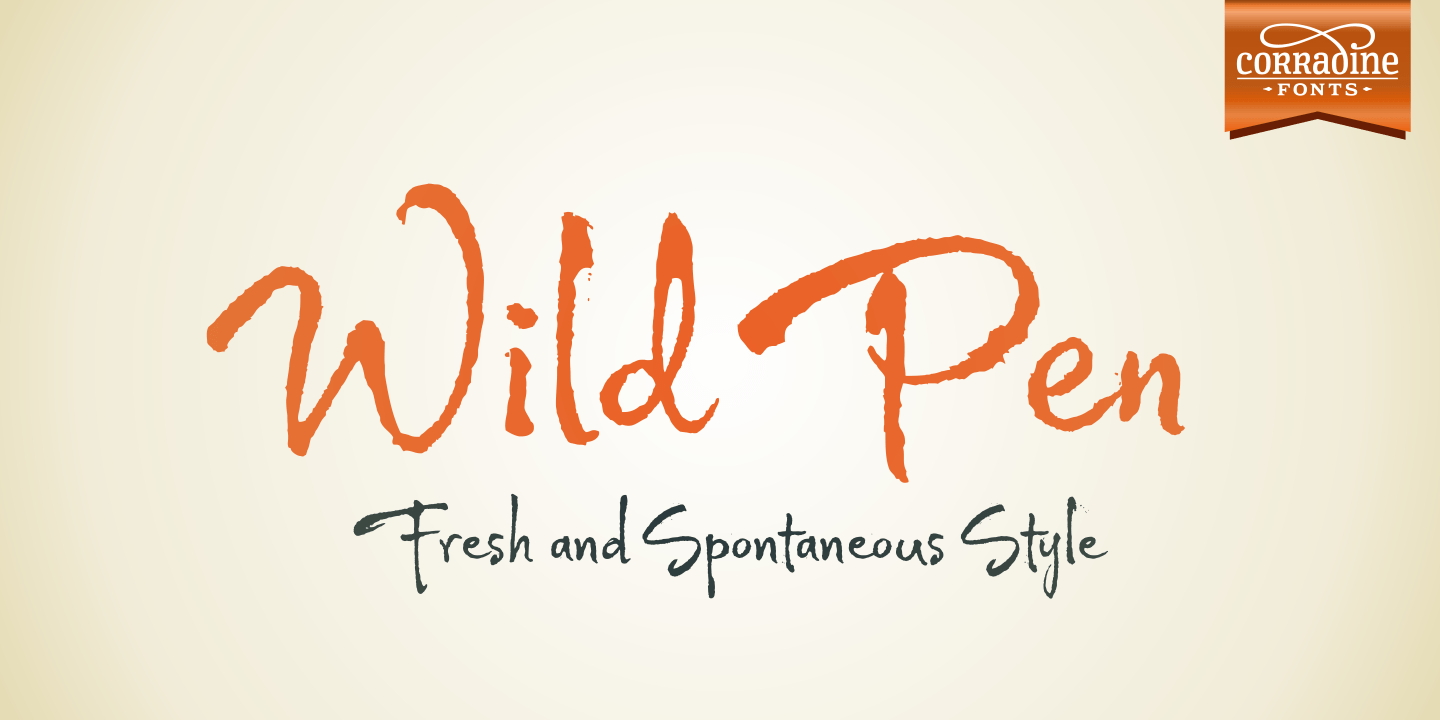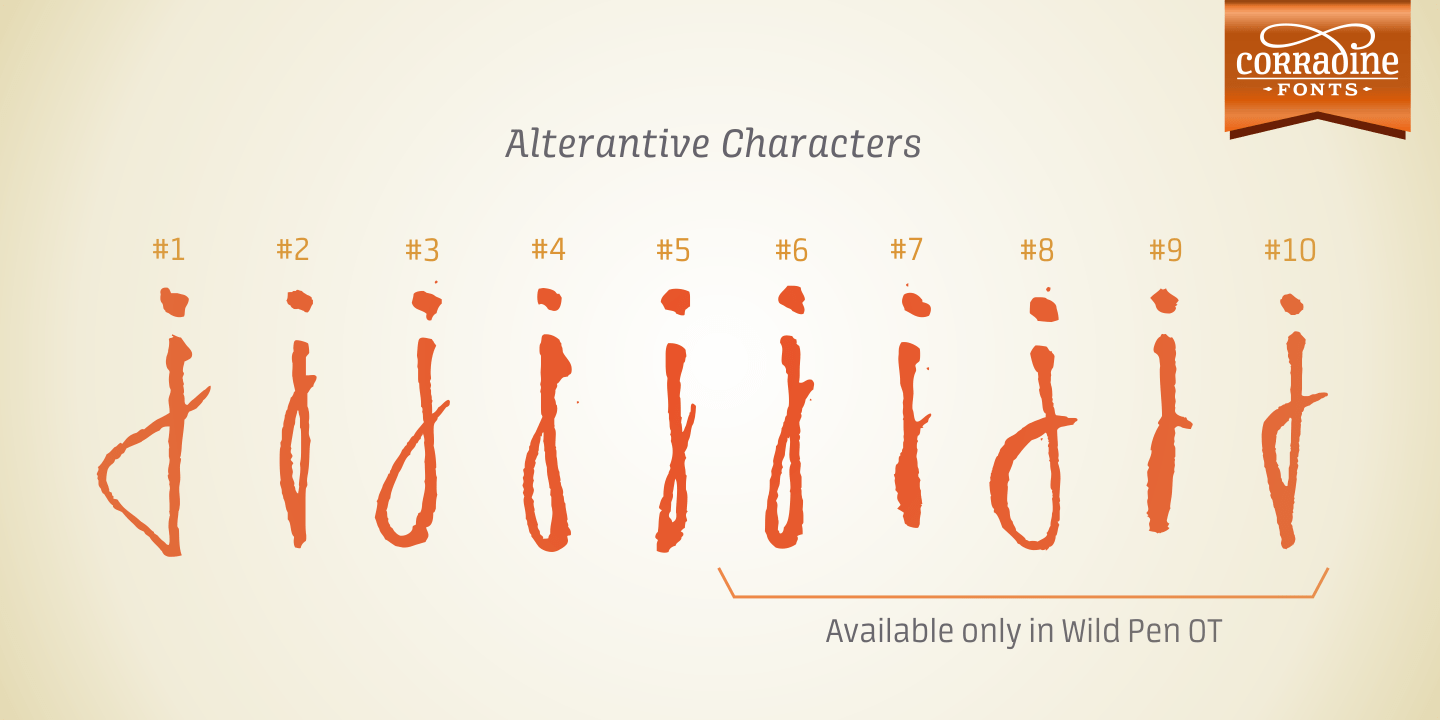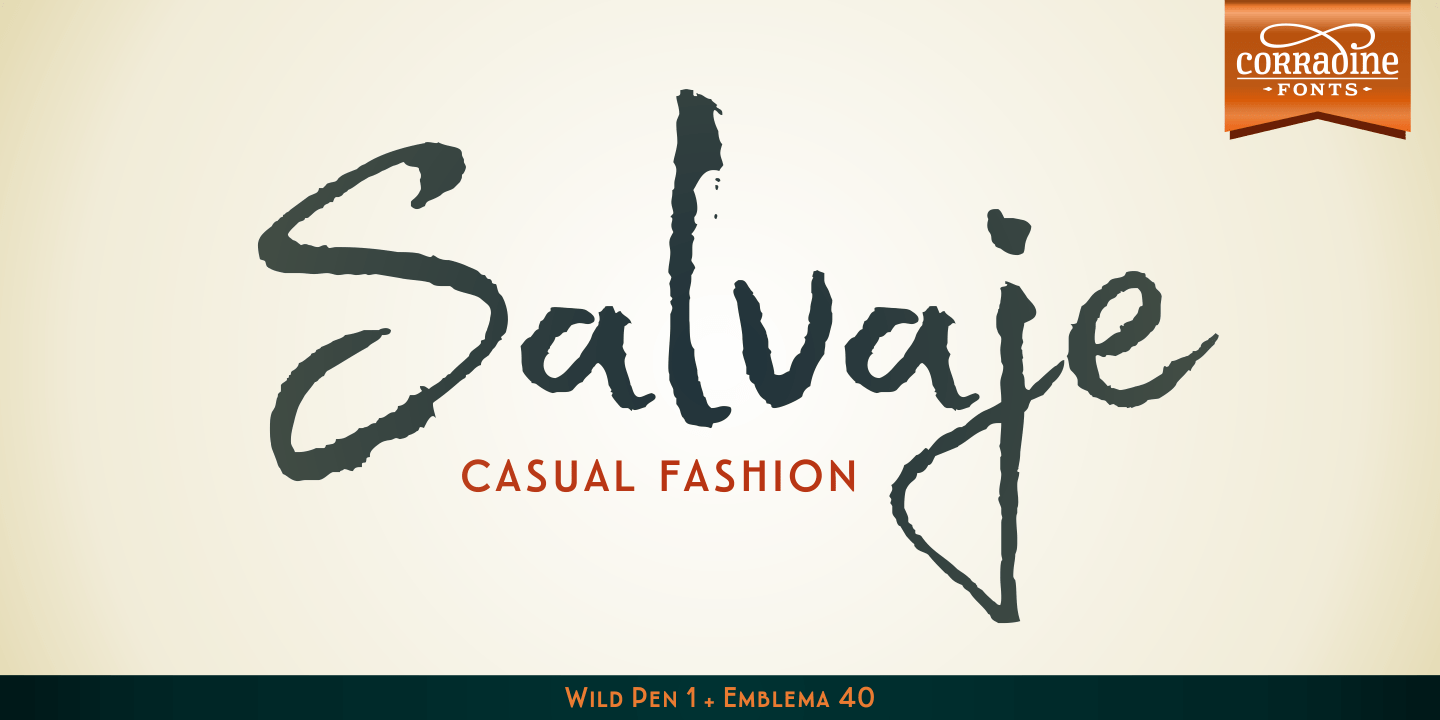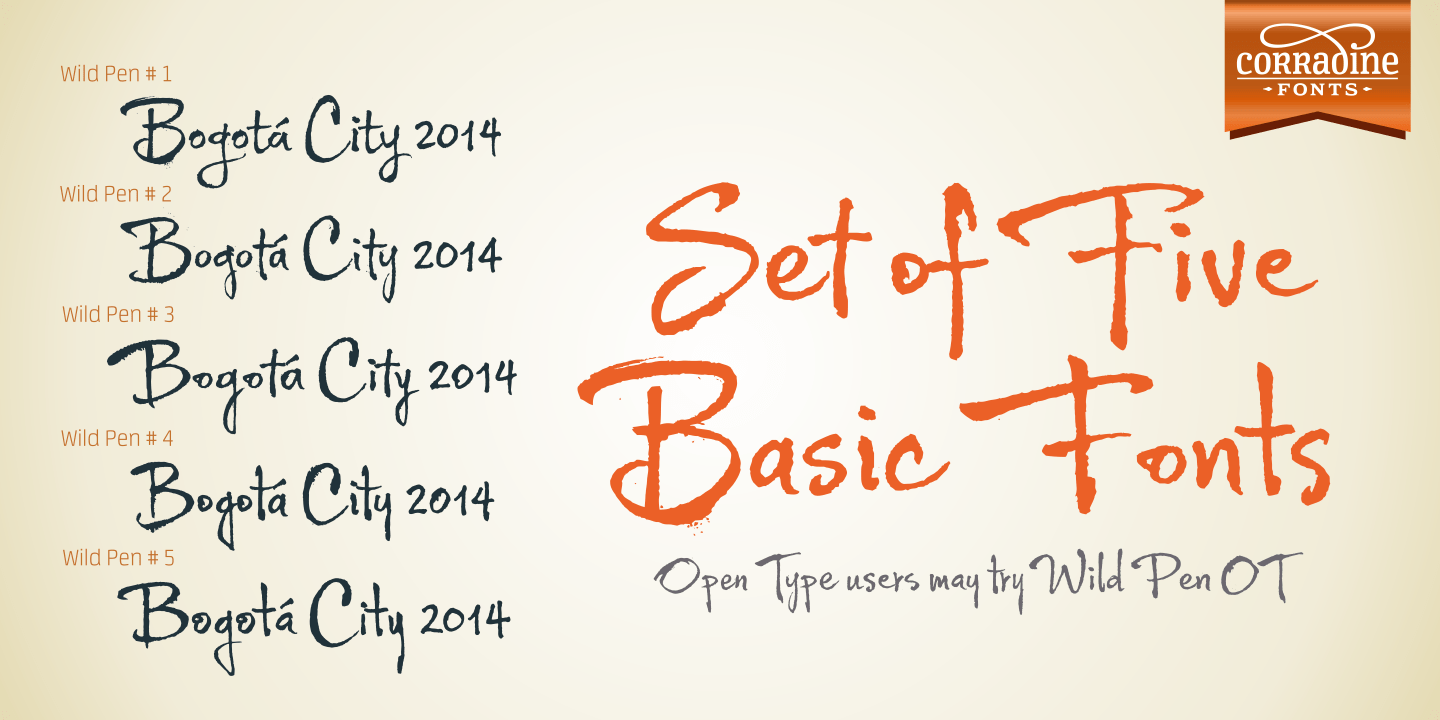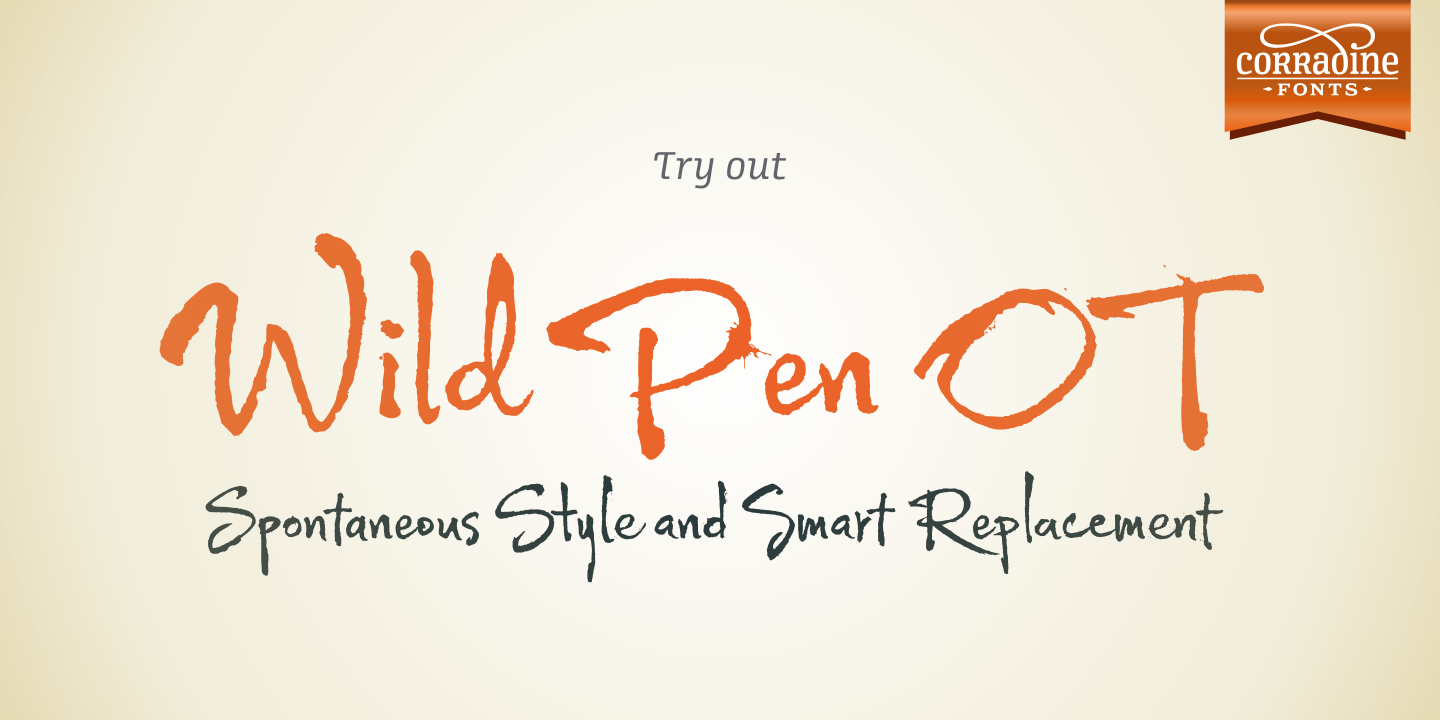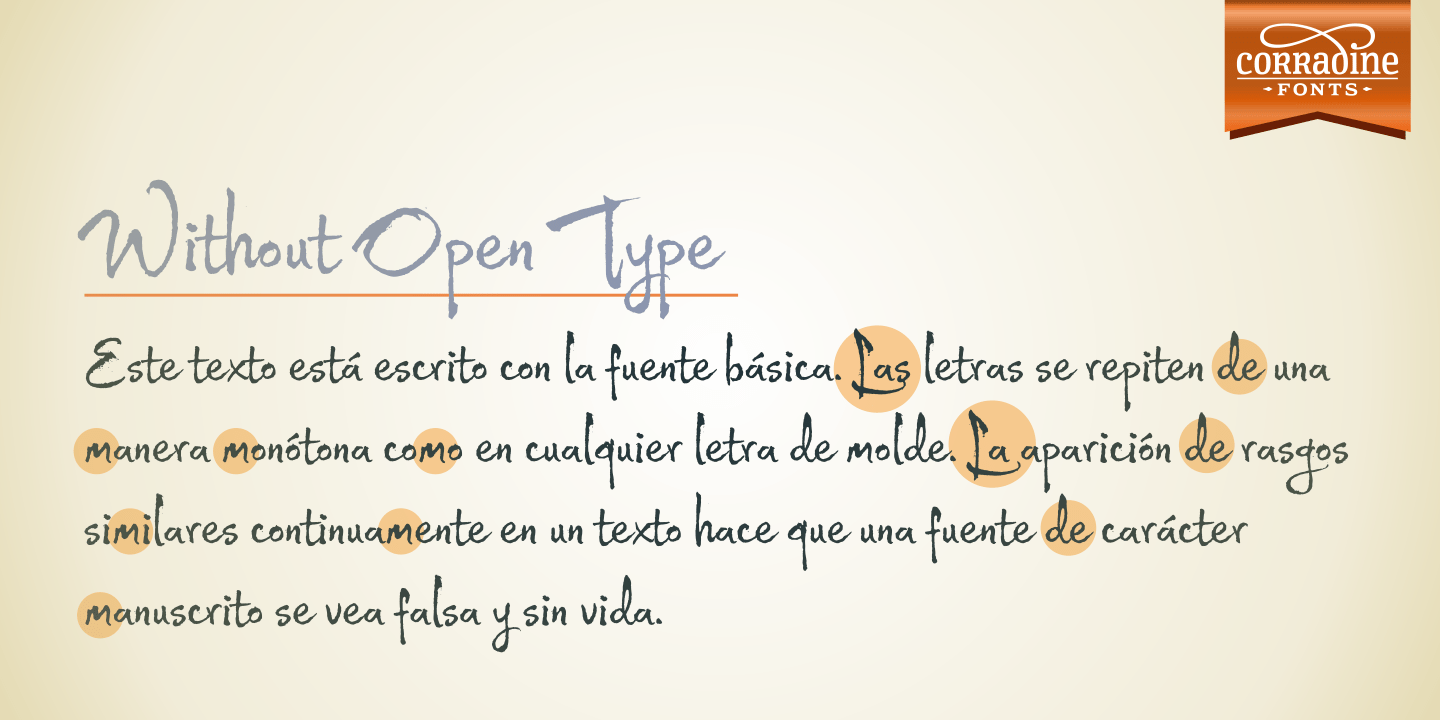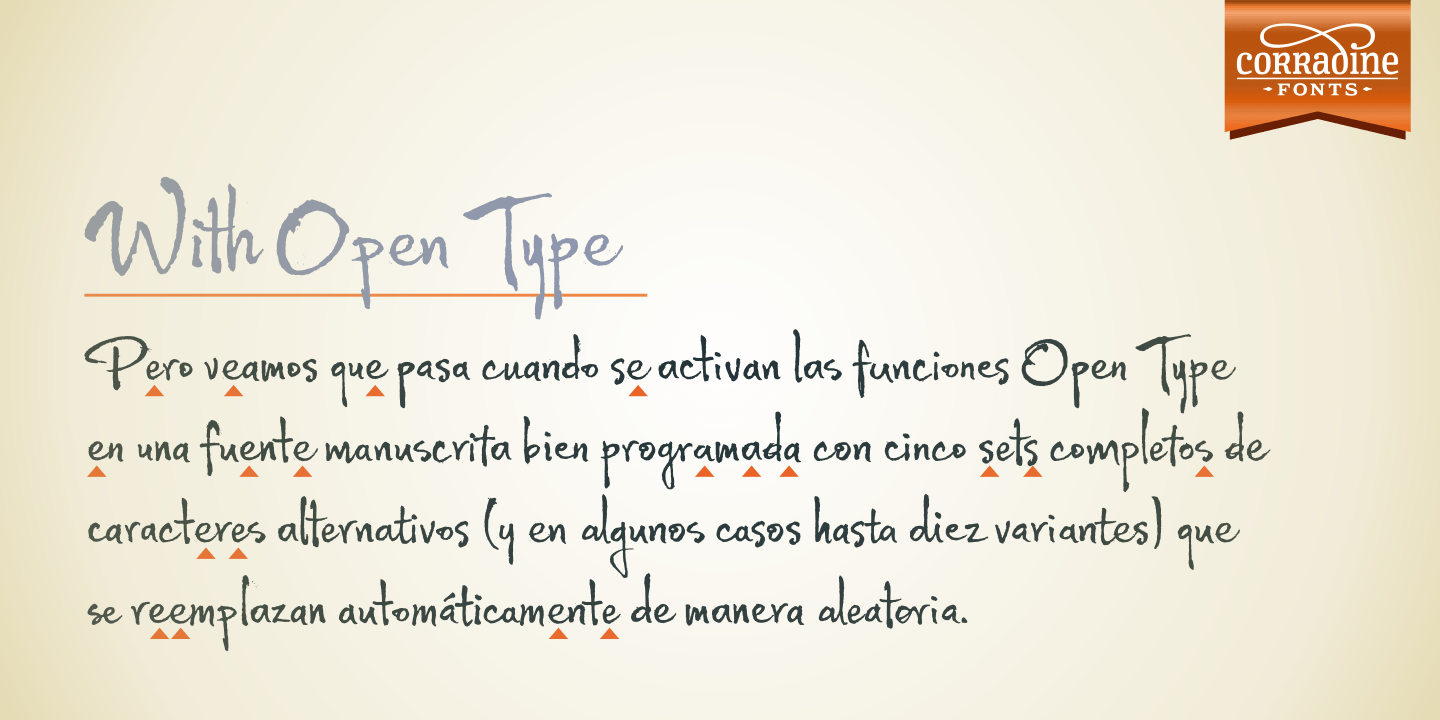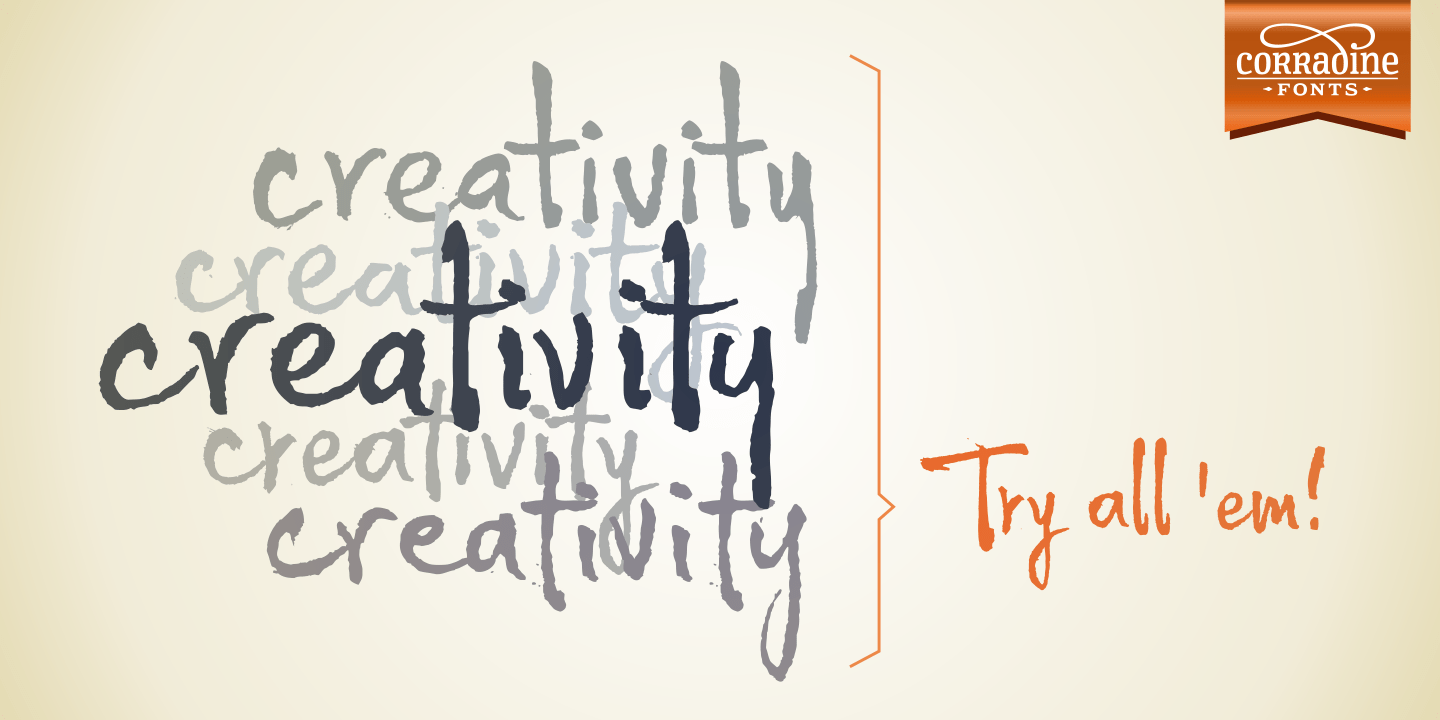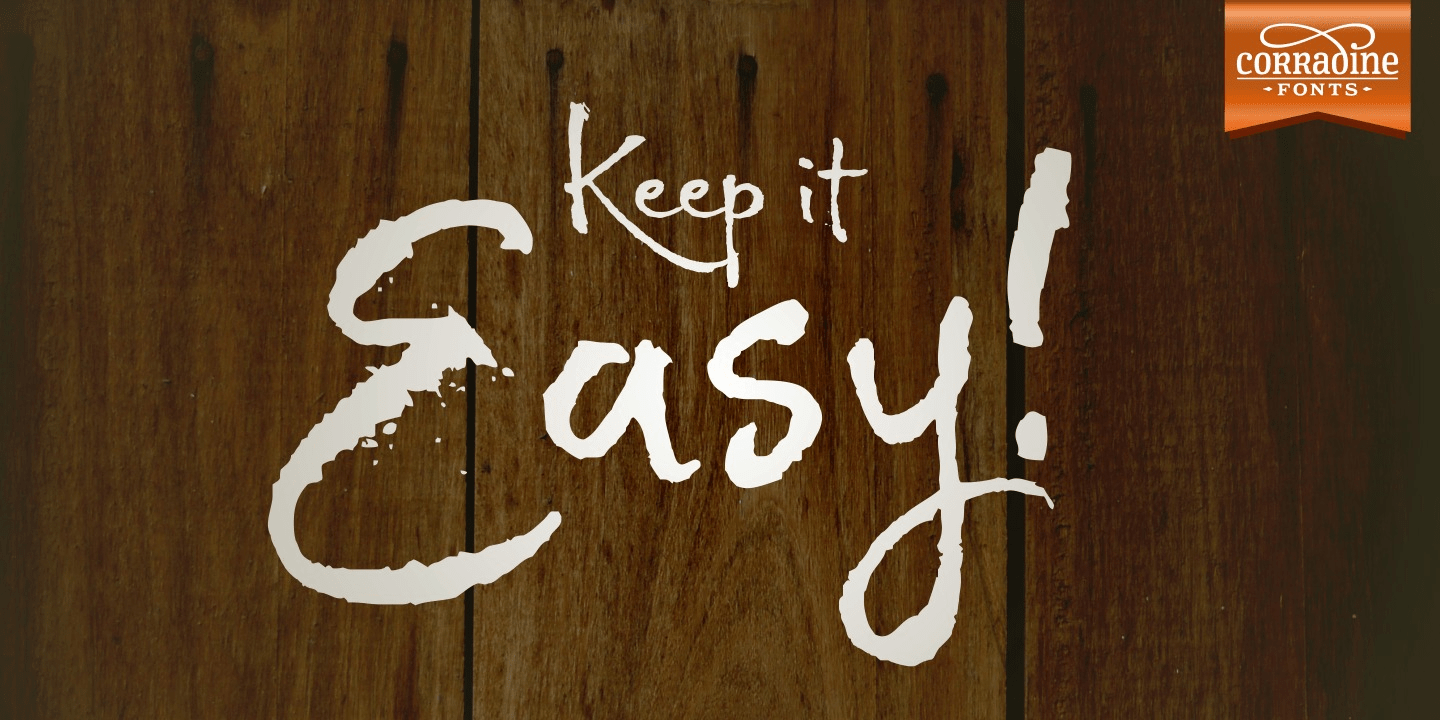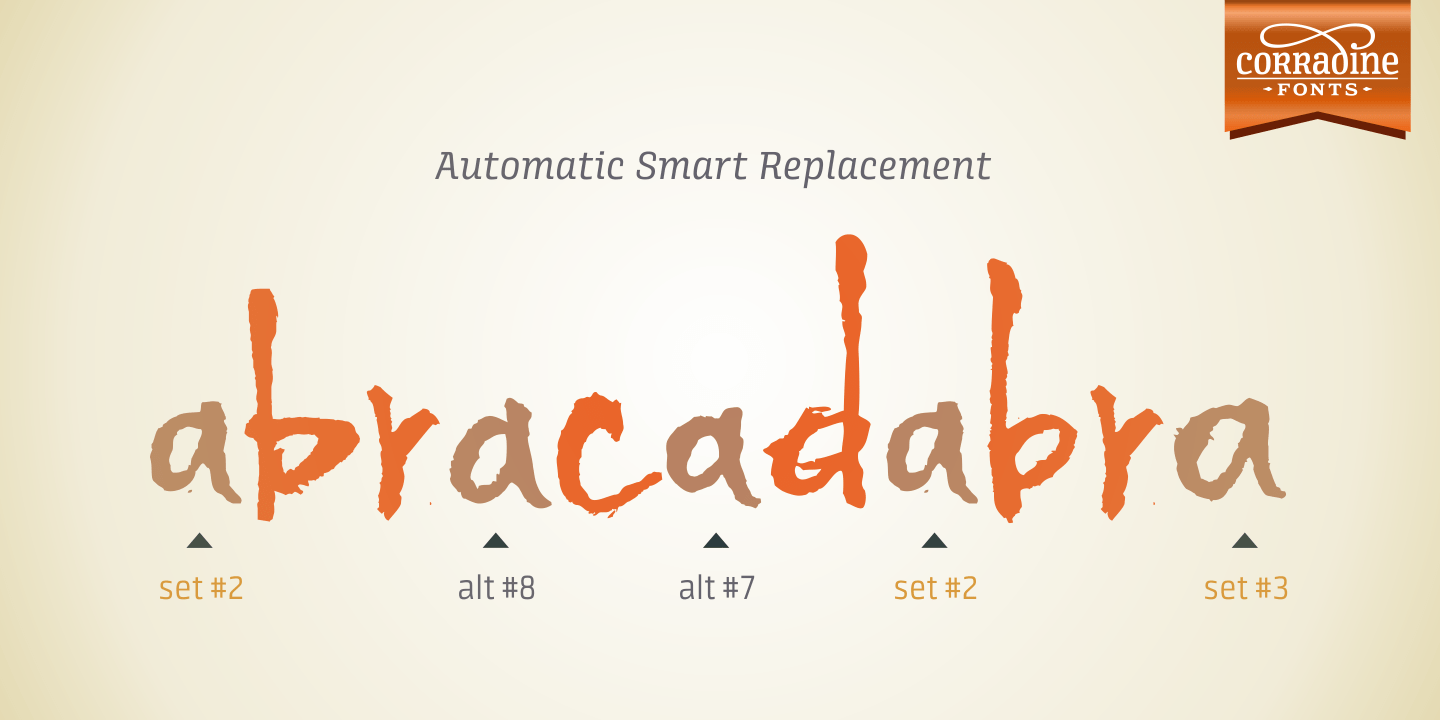
Wild Pen
Wild Pen is a handwritten typeface created through an experimental pen that's made from recycled plastic bottle.
Its spontaneous strokes are very free and allow presence of drops and blots of ink. The complete family consists of five different fonts, which have the same feeling, and allow mixing them to obtain a lifelike, handwritten text.
OpenType users may choose Wild Pen OT, which includes not just the five basic sets but also contains many additional alternative characters and some discretionary ligatures. Wild Pen OT is discreetly programmed to mix the five basic sets, randomly, and improve texts with the additional alternative characters?which have, in some cases, more than ten additional letters for each character. Wild Pen contains almost 1200 glyphs to cover many Latin languages (Western and Central European).